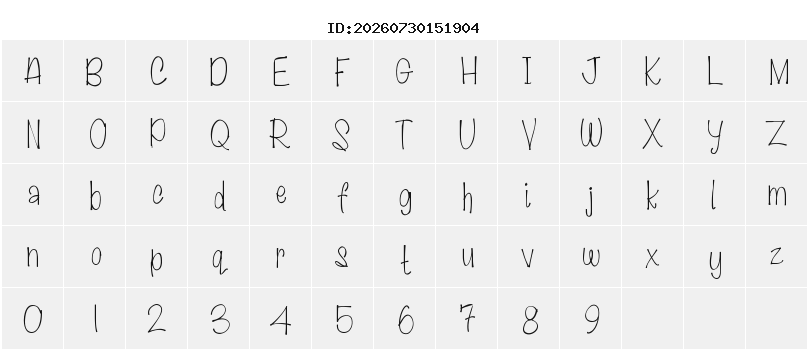
lawnmowers Preview
• Font Name: lawnmowers
• Full Font Name: lawnmowers
• PostScript Name: lawnmowers
• Character Count: 98
About lawnmowers.ttf
lawnmowers.ttf is a modern, elegant sans-serif font designed for ultimate readability and visual harmony. Perfect for branding, headlines, web design, and print materials.